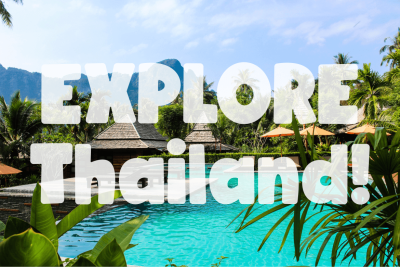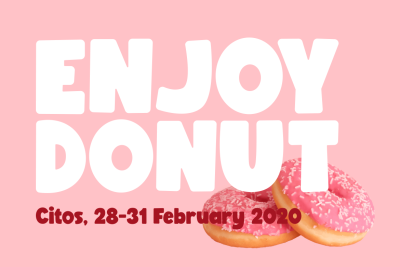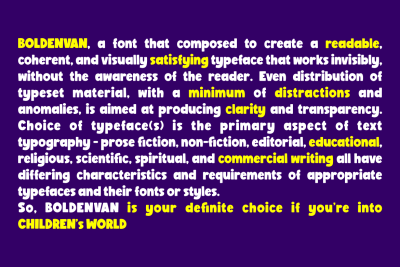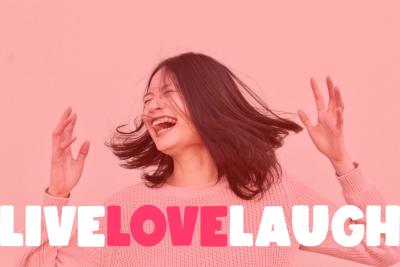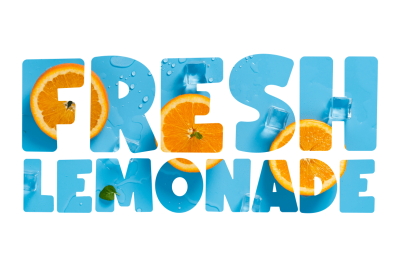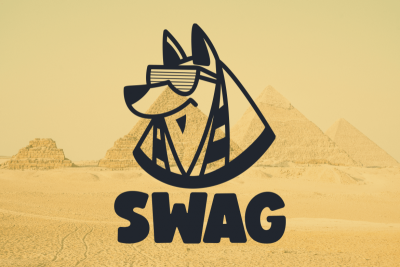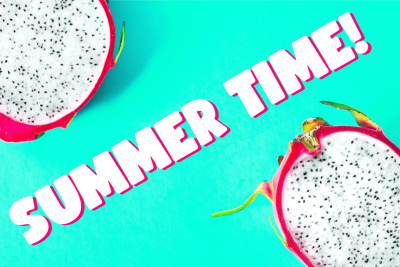
Funny Font BoldenVan brings energy and personality to every design. With its thick, rounded letterforms, it creates a lively style that captures attention right away. Perfect for titles, announcements, posters, and social media graphics, BoldenVan works well in vibrant colors or alongside other fonts. Moreover, itโs especially suited for fun themes like childrenโs media, festive events, and branding that demands a bold touch.
BoldenVanโs smooth curves and soft corners add warmth, inviting viewers to engage immediately. This makes it ideal for family-friendly brands, childrenโs products, and celebratory invitations. In projects that need an energetic and playful feel, BoldenVan stands out as a captivating choice. Additionally, the fontโs consistent weight and balanced spacing ensure readability, enhancing its versatility across various design applications.
BoldenVan is a valuable tool for creatives seeking a lively impact. Not only is it perfect for industries like entertainment, education, and events, but it also aligns well with branding that wants a joyful vibe. For instance, childrenโs book designers can use this font to bring stories to life, as its engaging look naturally attracts young readers. Event planners and marketers will also find it effective for banners, invitations, and decorations that need a bold, cheerful look.
BoldenVan is excellent for social media creators and marketers aiming to make a strong impression. Whether promoting a toy brand, advertising a festive event, or designing childrenโs apparel, BoldenVanโs playful appearance is sure to capture attention. Itโs well-suited for large displays and concise messages, ensuring content stands out on screens or in print.
With BoldenVan, designers can create visuals that appeal to all ages, especially younger audiences who enjoy vibrant, friendly fonts. Its lively character fits seamlessly in various formats, including digital ads, product packaging, and merchandise. Ultimately, BoldenVanโs cheerful style encourages interaction, making it a top choice for brands wanting to convey fun and approachability.